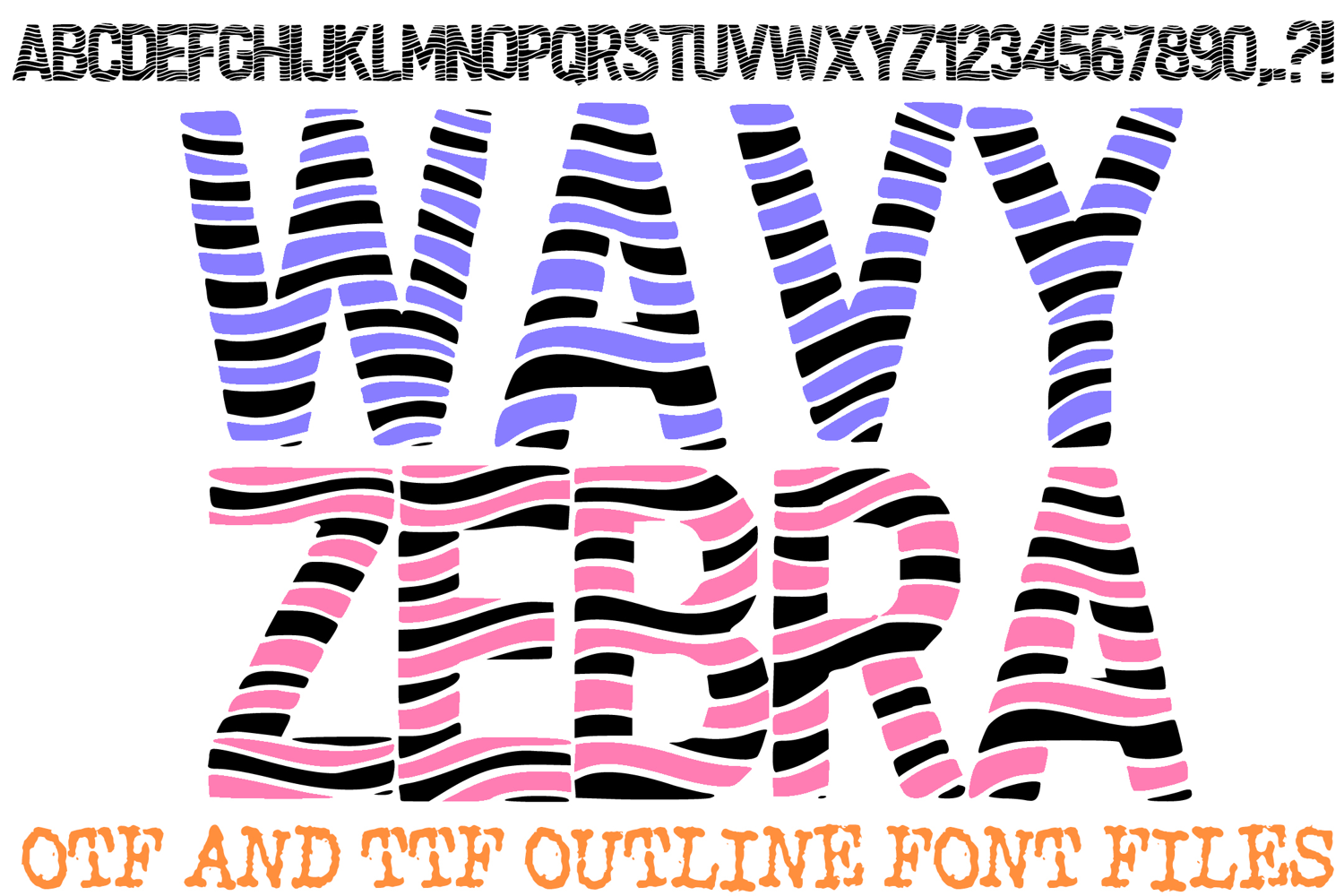
Step into a world of optical intrigue with the Wavy Zebra Font! This hand-drawn display alphabet features slender, vertical characters filled with a rhythmic, hypnotic pattern of undulating black and white stripes. The high-contrast "liquid" movement within each letter creates a vibrating effect that is perfect for psychedelic branding, modern streetwear, music festival posters, and avant-garde social media graphics.
Designed to mimic the flow of a digital frequency or a liquid marble texture, the Wavy Zebra Font ensures your text is never static. Whether you are designing an album cover for an electronic artist or creating high-impact stickers for a skater brand, this font delivers a sense of constant motion and sophisticated, modern energy.
Optical Illusion Texture: Every character is packed with flowing, horizontal wave patterns that create a stunning "shimmer" effect.
Sleek Vertical Silhouettes: The elongated, slender shapes of the letters provide a modern, high-fashion aesthetic.
Cohesive Rhythmic Flow: The wave patterns are designed to flow seamlessly from one letter to the next, creating a unified "pulse" across your words.